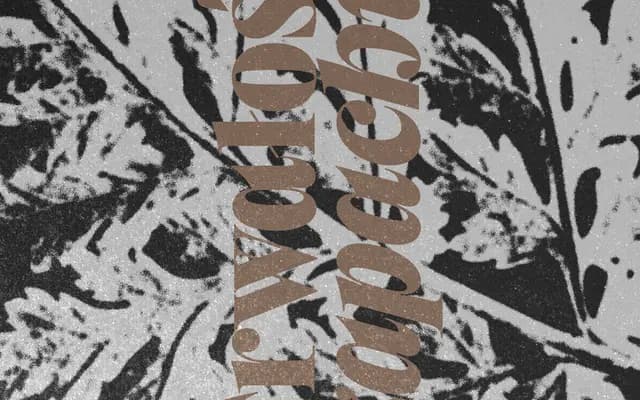
Miniature
Off Type · Valerio Monopoli
A baroque display serif with an unusually tall x-height, balancing theatrical flair with functional restraint across 14 styles and a variable axis.
Designed by Valerio Monopoli with type design collaboration from Andrea Biggio, Miniature draws on baroque structure while pushing the x-height well beyond convention, giving it a distinctive vertical tension. The family spans seven upright and seven italic styles from Extralight to Black, available as static OTF/TTF or as variable fonts. Off Type position it for punchy postmodern brands, editorial work and contemporary cultural exhibition contexts.
Described by the foundry as having a sturdy baroque structure with an unconventionally tall x-height; the flamboyant detailing, theatrical proportions and display orientation place it firmly in baroque display serif territory.